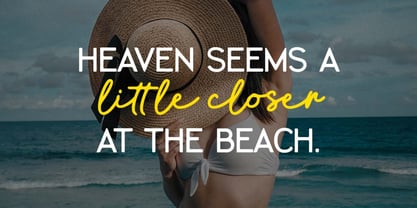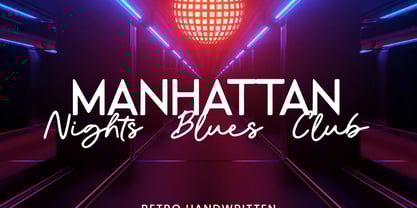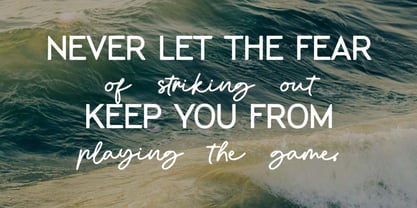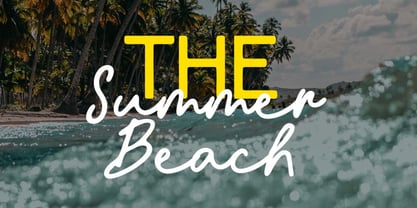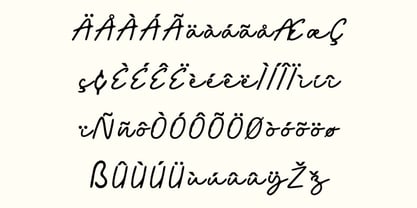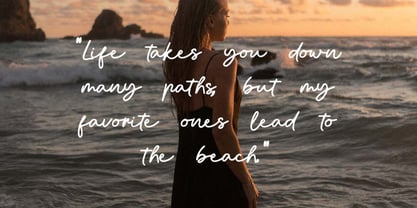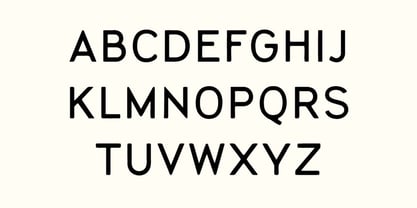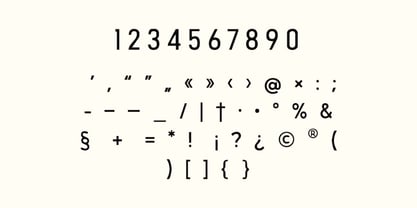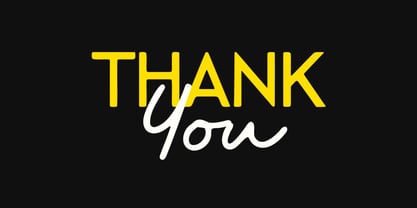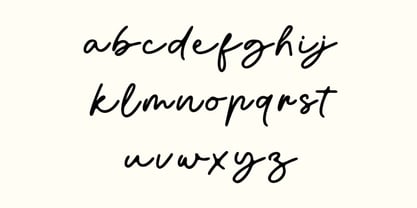
Manhattan Nights Blues Club
The Manhattan Nights Blues Club Font Family was designed by Hero and published by UICreative. Manhattan Nights Blues Club contains 2 styles and family package options. More about this family
Manhattan Night Blues Club Handwritten Font. The modern display font feels beautiful classy, elegant, and stylish. This font is ideally suited for a wide variety of projects, such as signature, stationery, logo, wedding, typography quotes, magazine or book covers, website headers, branding, and more. Also, fashion-related branding or editorial design displays both masculine and feminine qualities.